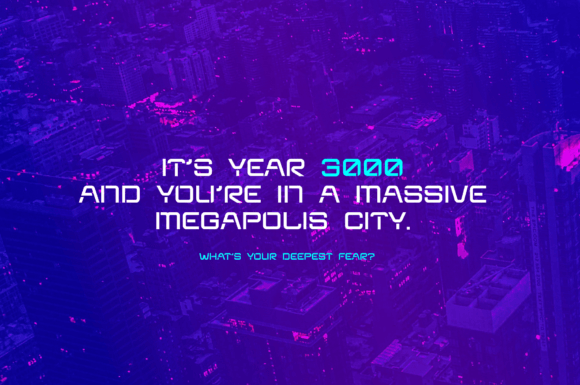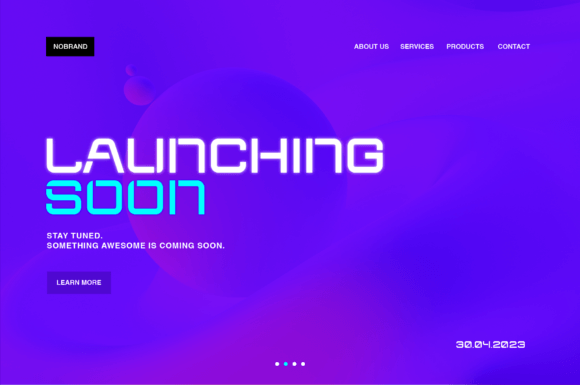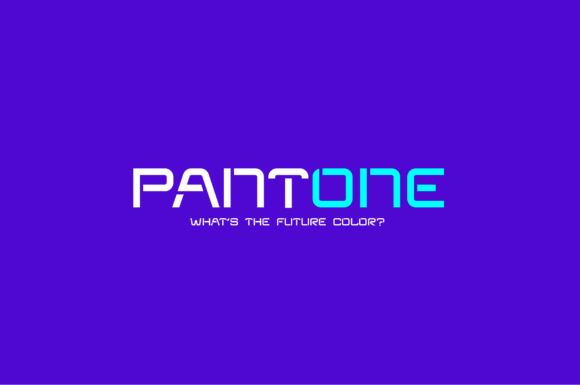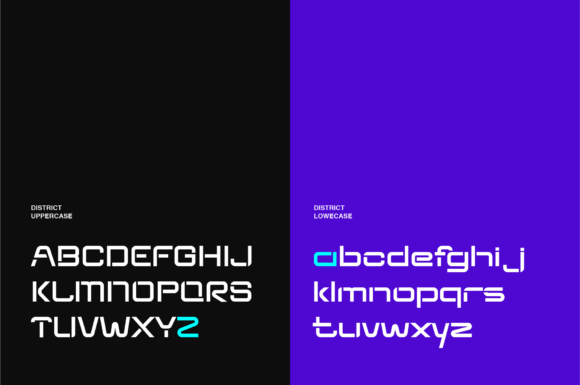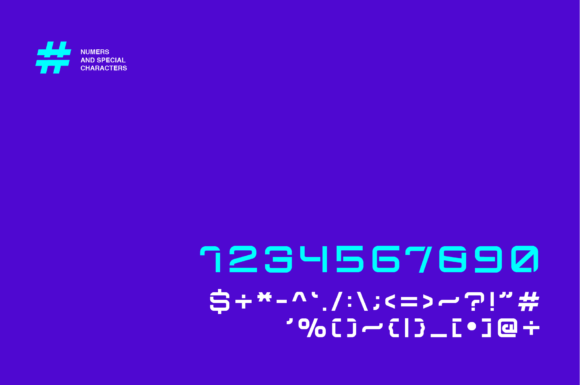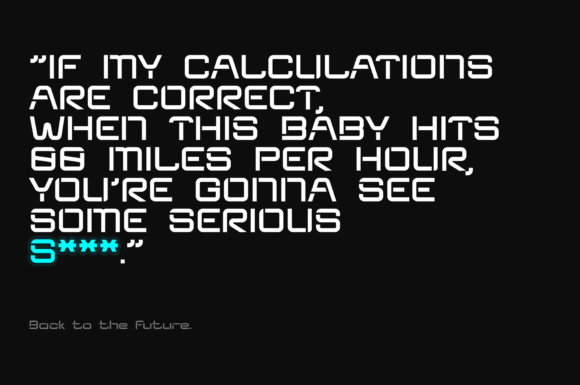
Introducing District Font: The Futuristic Stencil Sans Serif for Modern Design
In the world of typography, fonts play a crucial role in conveying the tone and aesthetic of a design. For designers and crafters looking to create futuristic and cutting-edge visuals, the District font is an excellent choice. This article will explore the features and benefits of the District font, a futuristic stencil sans serif typeface that’s perfect for sci-fi movies, e-sports logos, video games, technology gadgets, branding, posters, presentations, packaging, and more.
What is District Font?
District is a modern, minimalist font that’s designed to evoke a sense of futurism and innovation. Its stencil sans serif design gives it a sleek and edgy look that’s perfect for designs that require a bold and dynamic aesthetic. The font’s clean lines and geometric shapes make it highly legible, even at small sizes, ensuring that your message gets across clearly and effectively.
Key Features of District Font
- Futuristic Design: District font boasts a futuristic design that’s perfect for sci-fi movies, video games, and technology-related designs.
- Stencil Sans Serif: The font’s stencil sans serif design gives it a unique and edgy look that’s sure to grab attention.
- High Legibility: The font’s dynamic nature ensures that it’s highly legible, even at small sizes.
- Versatile: District font is suitable for a wide range of design applications, including branding, posters, presentations, packaging, and more.
Use Cases for District Font
The District font is an incredibly versatile typeface that can be used in a variety of design applications. Here are some examples of use cases where the District font excels:
- Sci-Fi Movies and TV Shows: The font’s futuristic design makes it perfect for sci-fi movies and TV shows that require a bold and otherworldly aesthetic.
- E-Sports Logos: The font’s dynamic and edgy design makes it ideal for e-sports logos that require a bold and attention-grabbing aesthetic.
- Video Games: The font’s futuristic design and high legibility make it perfect for video games that require a bold and dynamic aesthetic.
- Technology Gadgets: The font’s sleek and modern design makes it suitable for technology gadgets, such as smartphones, laptops, and smartwatches.
- Branding and Advertising: The font’s versatility and legibility make it perfect for branding and advertising applications, such as posters, billboards, and magazine ads.
Benefits of Using District Font
The District font offers several benefits for designers and crafters, including:
- Unique Aesthetic: The font’s futuristic design and stencil sans serif aesthetic give it a unique and distinctive look that’s sure to grab attention.
- High Legibility: The font’s dynamic nature ensures that it’s highly legible, even at small sizes.
- Versatility: The font’s versatility makes it suitable for a wide range of design applications.
- Time-Saving: The font’s pre-designed aesthetic saves designers time and effort, allowing them to focus on other aspects of their design.
In conclusion, the District font is an excellent choice for designers and crafters looking to create futuristic and cutting-edge visuals. Its unique aesthetic, high legibility, and versatility make it perfect for a wide range of design applications, from sci-fi movies and e-sports logos to technology gadgets and branding. Whether you’re looking to create a bold and attention-grabbing design or a sleek and modern aesthetic, the District font is an excellent choice.